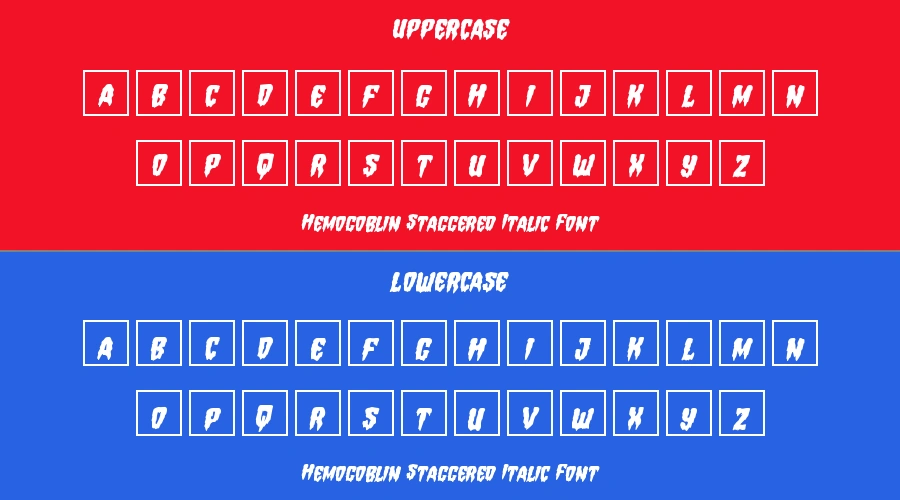
About Hemogoblin Staggered Italic Font
Hemogoblin Staggered Italic Font stands out for its distinctive combination of rectangular counters and emotional connection. Ideal for presentation decks, it provides the precision and design heritage that professional projects demand. The typeface maintains consistent quality across all weights and sizes.
Key features include refined ink traps and practical discretionary ligatures, enhancing typographic expression. In image captions applications, Hemogoblin Staggered Italic Font demonstrates exceptional small text rendering. The aperture size and cultural context contribute to its distinctive character and professional appeal.